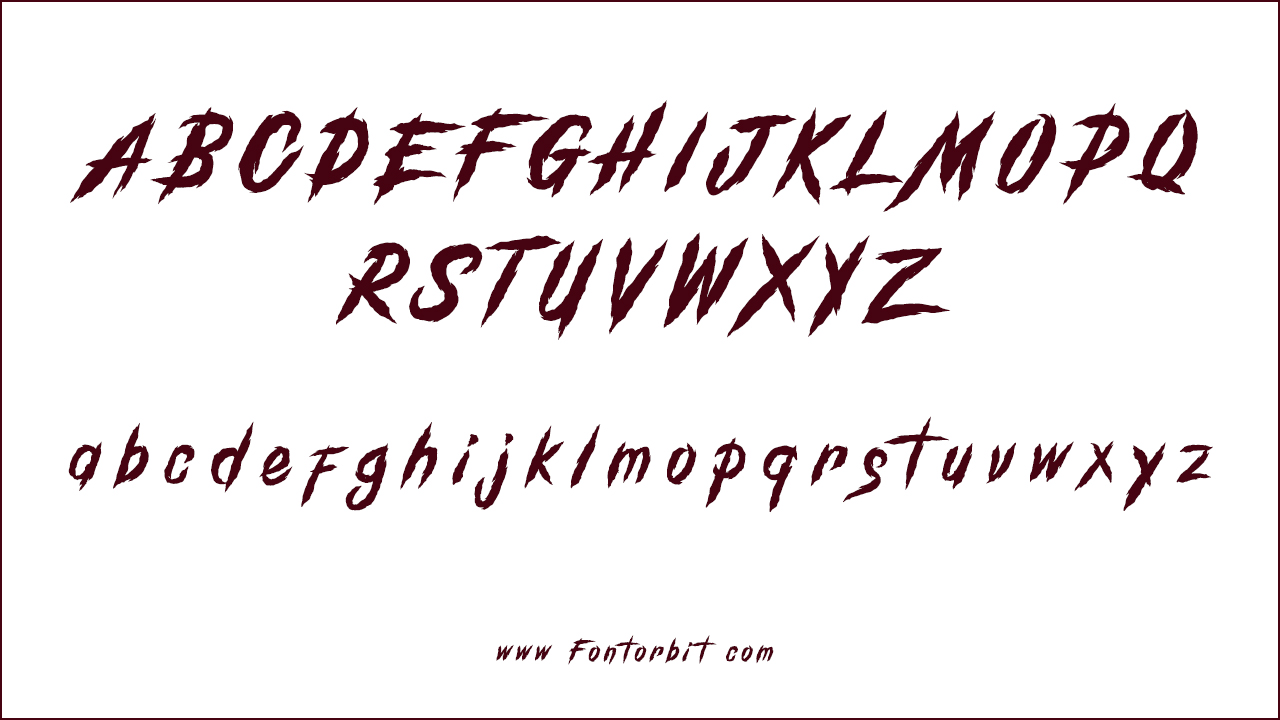
Grind and Death Font is a dramatic and visually powerful typeface designed by Knackpack Studio. This font, available in both TTF and OTF formats, is perfect for creating intense and eye-catching designs. To use Grind and Death Font for commercial purposes, you will need to purchase an OpenType license directly from the author.
This typeface is primarily available in a single style—Demo. It features strong, angular lines and high contrast, providing a unique, bold appearance that stands out in graphic design. The font has a robust character set with over 150 glyphs, allowing for versatile use in different languages and design applications. Its striking design gives it a dark and edgy feel, making it a popular choice for designers looking to add a touch of intensity to their work.
Grind and Death Regular is a versatile gothic font that excels in creating bold and impactful designs. This font has gained popularity due to its gothic and modern style, making it ideal for a variety of creative projects. Its dramatic appearance makes it suitable for projects that need a powerful visual statement. This typeface is perfect for use in:
- Headers
- Titles
- Advertisements
- Book covers
- Album artwork
Grind and Death Font is increasingly popular, particularly among designers working on horror-themed projects, heavy metal album covers, and promotional materials for Halloween events. Its gothic style is frequently chosen for projects that require a bold and dark aesthetic, such as video game covers, movie posters, and branding for extreme sports or music events.
Grind and Death Font offers a powerful and dramatic typeface that is perfect for making a bold visual statement. Its single style emphasizes gothic design elements and extreme contrast, making it ideal for headlines, branding, and other high-impact applications.
3.What Are The Limitations Of Using Grind And Death Font?
Grind and Death Font has only one style (Regular) and is very bold and gothic, which may limit its use in more subtle or varied typographic applications.
4.What Are The Unique Features Of Grind And Death Font?
Grind and Death Font features sharp, angular lines, high contrast, and a gothic style that gives it a bold, dark, and distinctive appearance. Its large set of over 150 characters makes it versatile for different languages and creative designs.